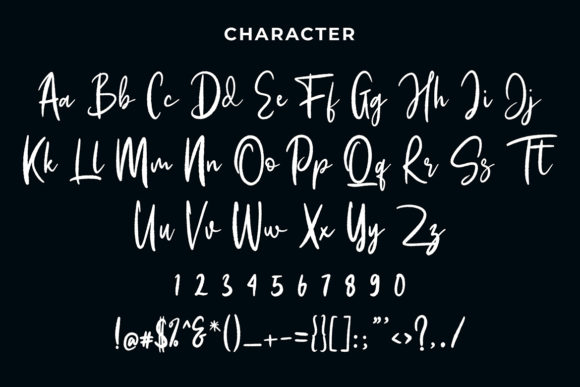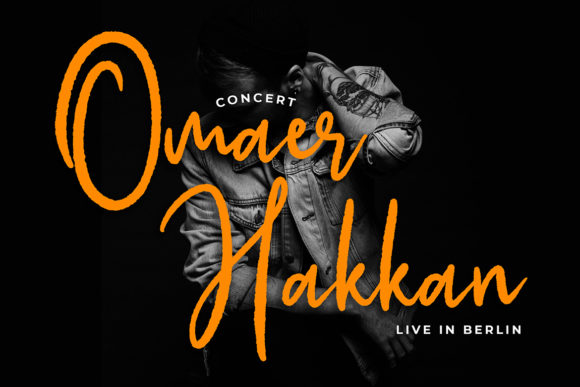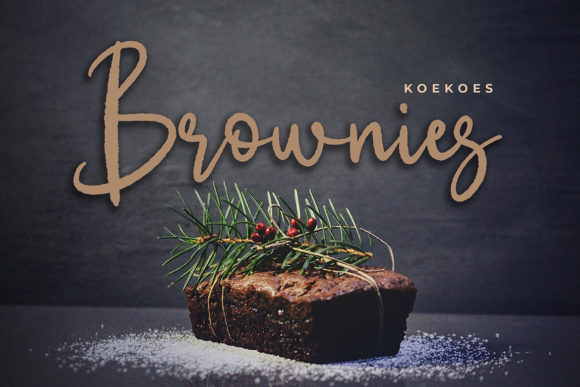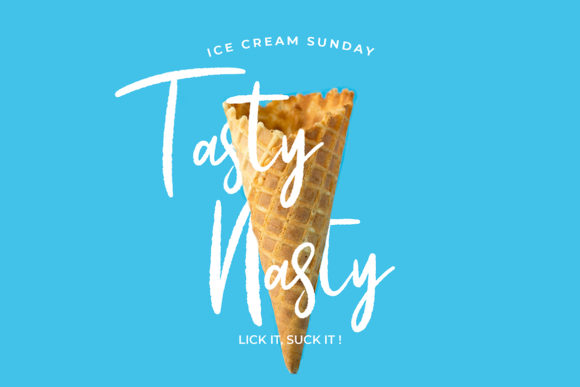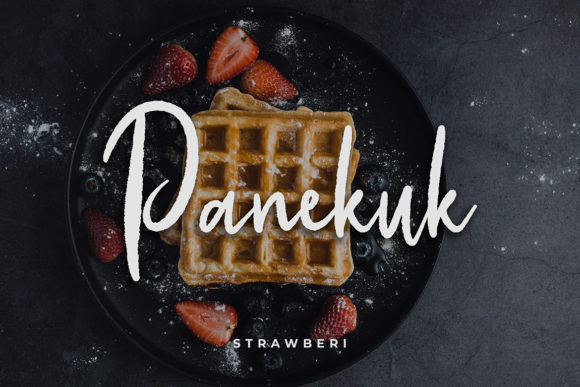
Discover the Elegance of Flossie Joelle Font: A Modern Script Font with a Touch of Authenticity
Are you a designer or crafter looking for a font that exudes elegance and sophistication? Look no further than Flossie Joelle, a modern script font that is sure to captivate your audience with its unique charm. In this article, we’ll dive into the world of Flossie Joelle, exploring its features, benefits, and uses, as well as provide tips on how to make the most of this stunning font.
What is Flossie Joelle Font?
Flossie Joelle is a modern script font that strikes the perfect balance between being fancy and authentic. Its elegant and flowing lines make it perfect for a variety of design projects, from wedding invitations and branding materials to packaging and advertising. With its unique charm and character, Flossie Joelle is sure to add a touch of sophistication to any design.
Key Features of Flossie Joelle Font
So, what makes Flossie Joelle font so special? Here are some of its key features:
- Unique and elegant design: Flossie Joelle boasts a distinctive and stylish design that sets it apart from other script fonts.
- Modern and authentic feel: This font has a modern edge while still feeling authentic and genuine.
- Highly legible: Despite its elegant design, Flossie Joelle is highly legible, making it perfect for body text and headlines.
- Versatile: This font can be used for a wide range of design projects, from digital to print.
Benefits of Using Flossie Joelle Font
So, why should you choose Flossie Joelle font for your design projects? Here are some benefits:
- Adds elegance and sophistication: Flossie Joelle instantly elevates your design, adding a touch of elegance and sophistication.
- Creates a lasting impression: With its unique charm and character, Flossie Joelle is sure to leave a lasting impression on your audience.
- Perfect for branding: This font is ideal for branding materials, such as logos, business cards, and letterheads.
Tips for Using Flossie Joelle Font
To make the most of Flossie Joelle font, here are some tips:
- Use it for headlines and titles: Flossie Joelle is perfect for headlines and titles, where its elegant design can shine.
- Pair it with a sans-serif font: For body text, pair Flossie Joelle with a sans-serif font to create a beautiful contrast.
- Experiment with colors and textures: Don’t be afraid to experiment with different colors and textures to add depth and interest to your design.
- Use it consistently: To create a cohesive look, use Flossie Joelle consistently across all your design materials.
Still not sure how to use Flossie Joelle font? Here are some inspiration and ideas to get you started:
- Wedding invitations: Use Flossie Joelle to create beautiful and elegant wedding invitations that set the tone for the big day.
- Branding materials: Create a cohesive brand identity with Flossie Joelle, using it for logos, business cards, and letterheads.
- Packaging design: Add a touch of elegance to your packaging design with Flossie Joelle, perfect for luxury brands.
- Advertising: Use Flossie Joelle to create eye-catching and sophisticated advertisements that grab attention.
In conclusion, Flossie Joelle font is a modern script font that offers a unique blend of elegance and authenticity. With its highly legible design and versatile uses, it’s perfect for designers and crafters looking to add a touch of sophistication to their design projects. So why not give Flossie Joelle a try and discover its unique charm for yourself?